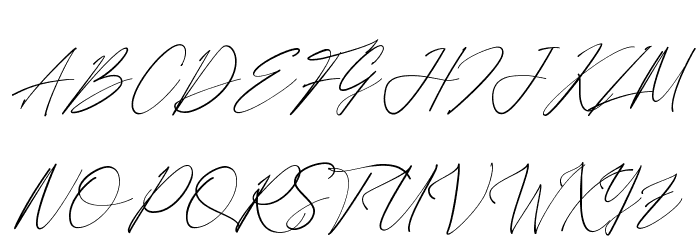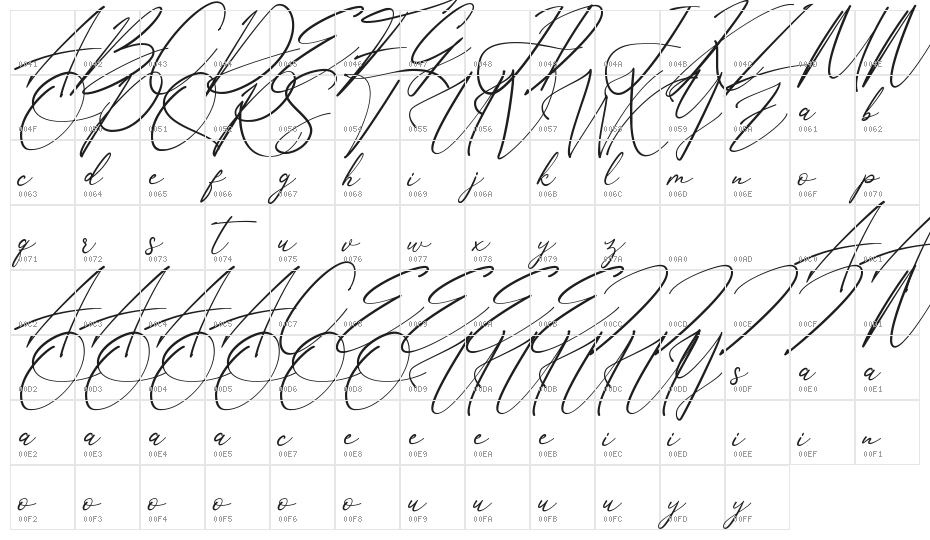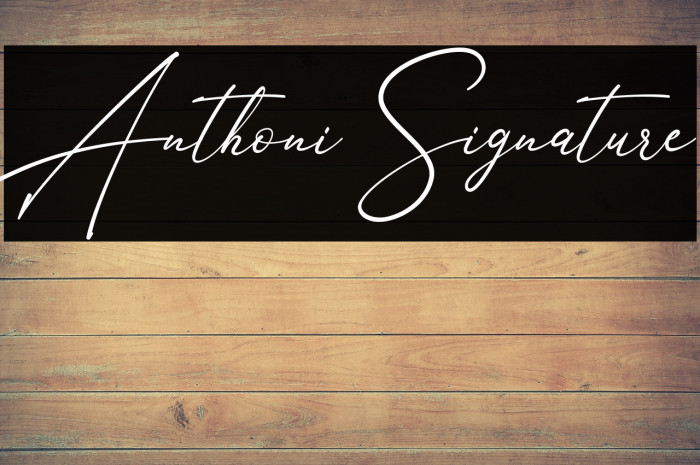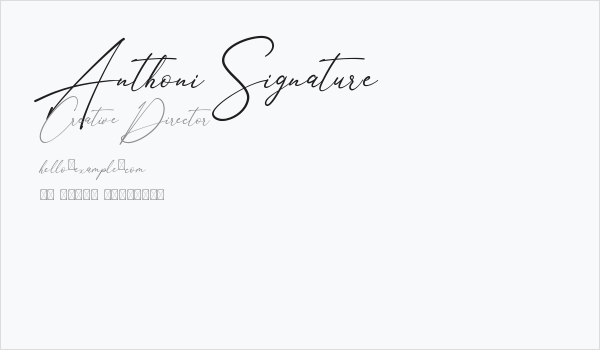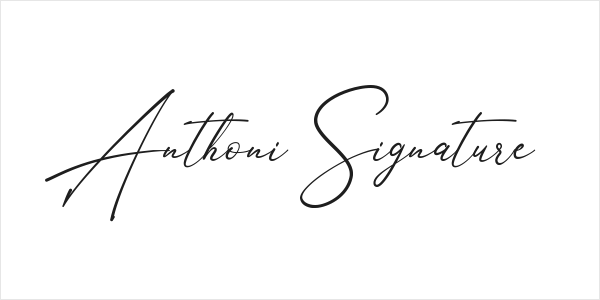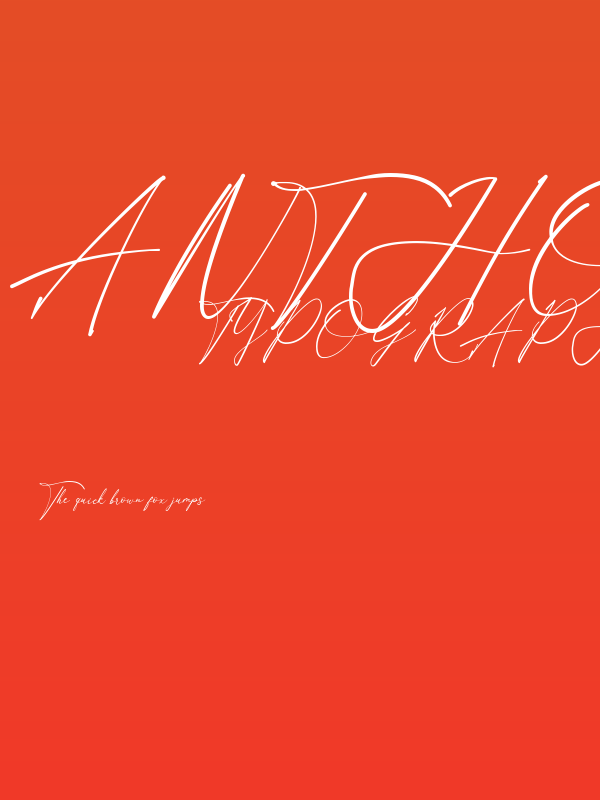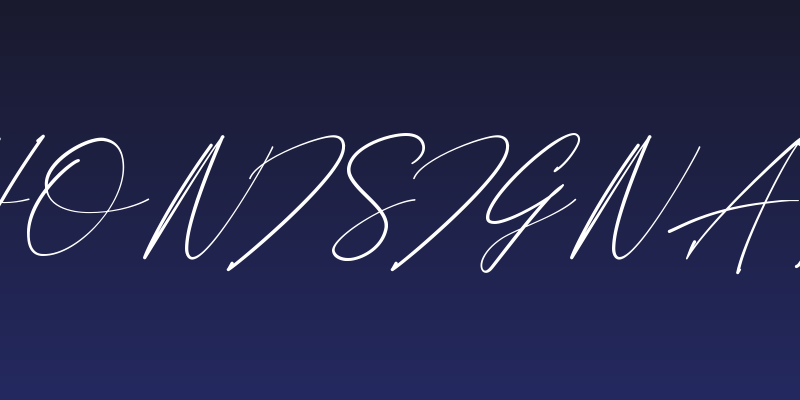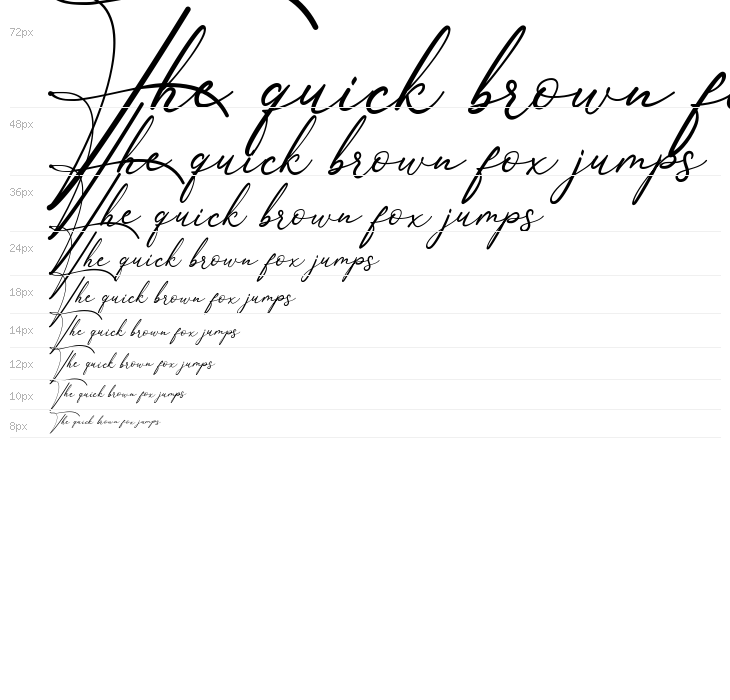
Anthoni Signature Font
Anthoni Signature Description
This font exudes elegance and sophistication with its flowing, cursive style. The letters are interconnected, creating a seamless and fluid appearance reminiscent of a personal signature. The uppercase letters are tall and slender, while the lowercase letters maintain a consistent baseline with graceful loops and curves. The font's design is both artistic and legible, making it suitable for projects that require a touch of class and personalization. Its unique character is enhanced by the varying stroke widths, adding a dynamic and lively feel to the text.
| Proposed Projects | Ideal for wedding invitations, personal branding, logo design, and elegant stationery. |